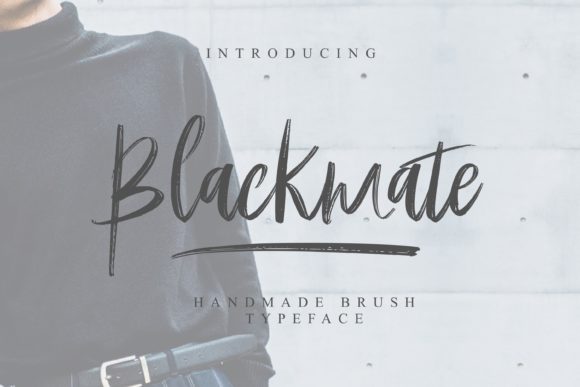
Introducing Blackmate Font: The Ultimate Handwritten Script for Creative Projects
Are you tired of using the same old fonts for your creative projects? Look no further than Blackmate Font, a stunning handwritten script font that is sure to elevate your designs. With its unique brush-like texture, Blackmate Font is perfect for a wide range of applications, from quotes and social media posts to branding projects, headings, blogs, logos, business cards, websites, invitations, shirts, mugs, and more!
The Characteristics of Blackmate Font
Blackmate Font is a carefully crafted handwritten script font that boasts a distinctive brush-like texture. This texture gives the font a organic, hand-crafted feel that is perfect for designers and crafters looking to add a personal touch to their work. The font is highly legible, making it suitable for use in a variety of contexts, from digital media to print materials.
What Makes Blackmate Font So Versatile?
One of the key benefits of Blackmate Font is its incredible versatility. The font can be used for a wide range of creative projects, including:
- Quotes: Add a touch of elegance and sophistication to your inspirational quotes with Blackmate Font.
- Social Media Posts: Stand out on social media with eye-catching text that showcases your brand’s personality.
- Branding Projects: Create a cohesive brand identity with Blackmate Font, perfect for logos, business cards, and more.
- Headings: Add a pop of personality to your blog posts, articles, and website headings.
- Blogs: Elevate your blog’s typography with Blackmate Font, perfect for titles, subtitles, and more.
- Logos: Create a unique and memorable logo with Blackmate Font that will set your brand apart.
- Business Cards: Make a lasting impression with stylish business cards featuring Blackmate Font.
- Websites: Add a touch of elegance to your website’s typography with Blackmate Font.
- Invitations: Create beautiful, one-of-a-kind invitations for special occasions, such as weddings, birthdays, and more.
- Shirts and Mugs: Add a personal touch to your apparel and accessories with Blackmate Font.
Why Choose Blackmate Font?
With so many fonts available, why choose Blackmate Font? Here are just a few reasons why designers and crafters love this font:
- Unique Texture: The brush-like texture of Blackmate Font gives it a distinctive, hand-crafted feel that sets it apart from other fonts.
- High Legibility: Blackmate Font is highly legible, making it suitable for use in a wide range of contexts.
- Versatility: Blackmate Font can be used for a wide range of creative projects, from digital media to print materials.
- Elegant and Sophisticated: Blackmate Font has an elegant, sophisticated feel that is perfect for designers and crafters looking to add a touch of personality to their work.
Tips for Using Blackmate Font
To get the most out of Blackmate Font, here are a few tips to keep in mind:
- Experiment with Different Sizes: Blackmate Font looks great in a variety of sizes, from large headings to smaller text.
- Play with Color: The brush-like texture of Blackmate Font looks great in a range of colors, from bold and bright to subtle and muted.
- Combine with Other Fonts: Blackmate Font pairs well with a range of other fonts, so don’t be afraid to experiment with different combinations.
| Font Name | Blackmate Font |
| Author | BONJOURTYPE |
Blackmate Font is a versatile and elegant handwritten script font that is perfect for designers and crafters looking to add a personal touch to their work. With its unique brush-like texture, high legibility, and versatility, Blackmate Font is sure to become a go-to font for creative projects of all kinds. Whether you’re looking to create stunning social media posts, elegant branding materials, or eye-catching headings, Blackmate Font is the perfect choice.